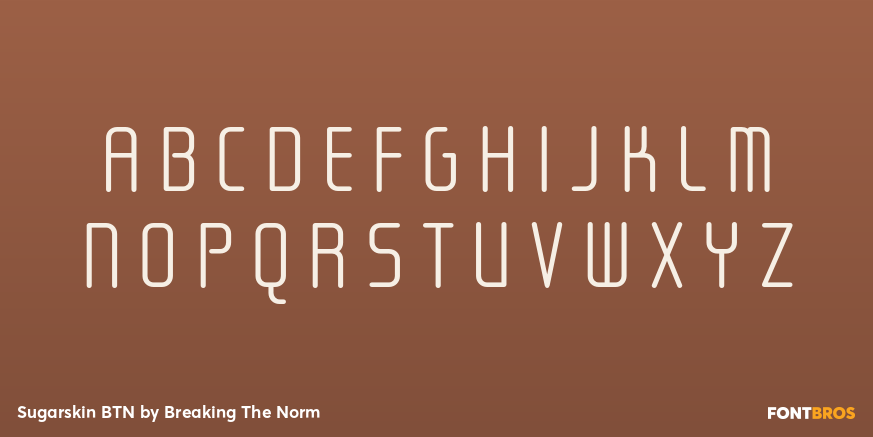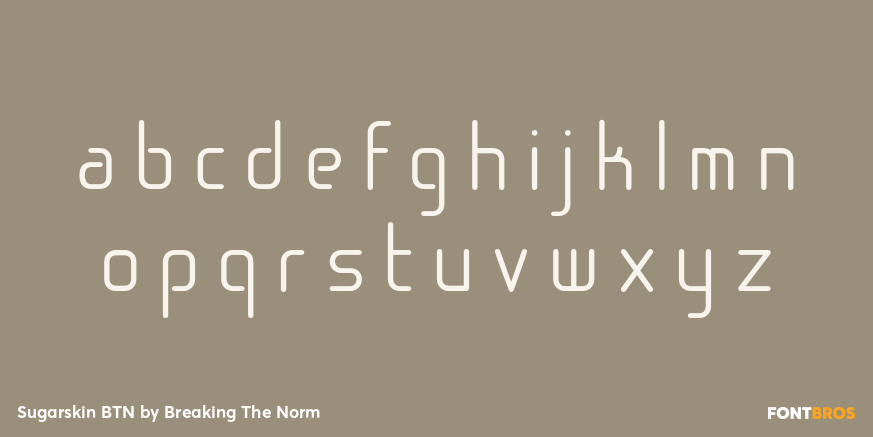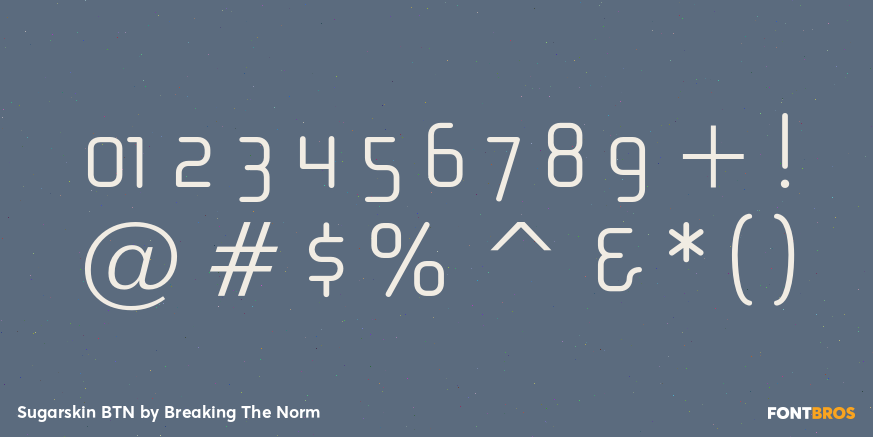
Sugarskin BTN
Font Family by Breaking The Norm
Sugarskin BTN is a clean monoline techno display family inspired by neon pipework and refined into a sleeker, more readable typographic system. Its rounded linear construction gives it a futuristic electronic feel, while the controlled structure keeps it crisp and usable across a range of display settings. Sugarskin BTN works especially well for technology branding, posters, gaming graphics, signage, packaging, music-related design, and digital-era headlines that call for a smooth modern voice. With Bold, Shadow, and Small Cap variations, the family offers flexible options for building stylish futuristic typography with added depth and graphic character.